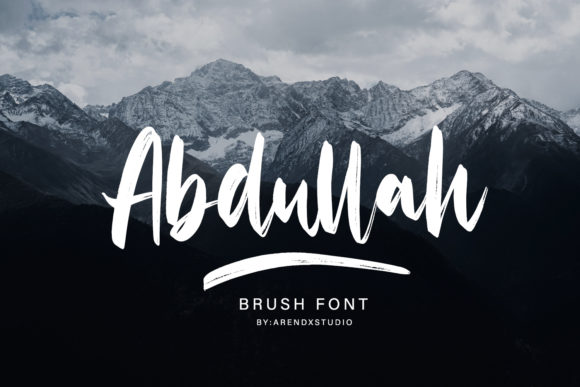
The Hunt for the Perfect Font: My Love Affair with Abdullah
I’ll never forget the design project that led me to discover the beautiful Abdullah font. I was working on a branding project for a boutique craft shop, and I needed a font that would capture the organic, handmade feel of their products. I scoured font websites, searched through design blogs, and even asked fellow designers for recommendations, but nothing seemed quite right. That was until I stumbled upon Abdullah – a stunning script font with a unique, hand-written charm.
First Impressions: What I Love About Abdullah
As soon as I saw Abdullah, I knew I was in love! Here are just a few things that make this font so special:
• ✨ Distinct handwriting style gives it an organic, natural vibe
• ✅ Unique character set with plenty of personality
• 💫 Supports OpenType features, including glyphs and stylistic alternates
• 👍 Highly legible, even at smaller sizes
The Honest Review: A Few Quirks to Consider
While Abdullah is an amazing font, it’s not without its quirks. Here are a few things to keep in mind:
• 🤔 Some characters may require manual kerning for optimal spacing
• ⚠️ Limited language support (but great for English and other Latin-based languages)
The Story Behind Abdullah
Abdullah was designed by a talented font designer who wanted to create a font that captured the beauty of handwritten script. Inspired by traditional calligraphy and modern handwriting, Abdullah is a unique blend of old and new. While the designer’s exact story may be unknown, their passion for typography and design shines through in every character.
Font Name Abdullah Font
Author Arendxstudio
What type of projects is Abdullah best suited for? Abdullah is perfect for branding, packaging, and advertising projects that require a personal, handwritten touch.
Is Abdullah available in different weights or styles? Abdullah currently comes in a single weight, but its OpenType features offer plenty of flexibility and variation.